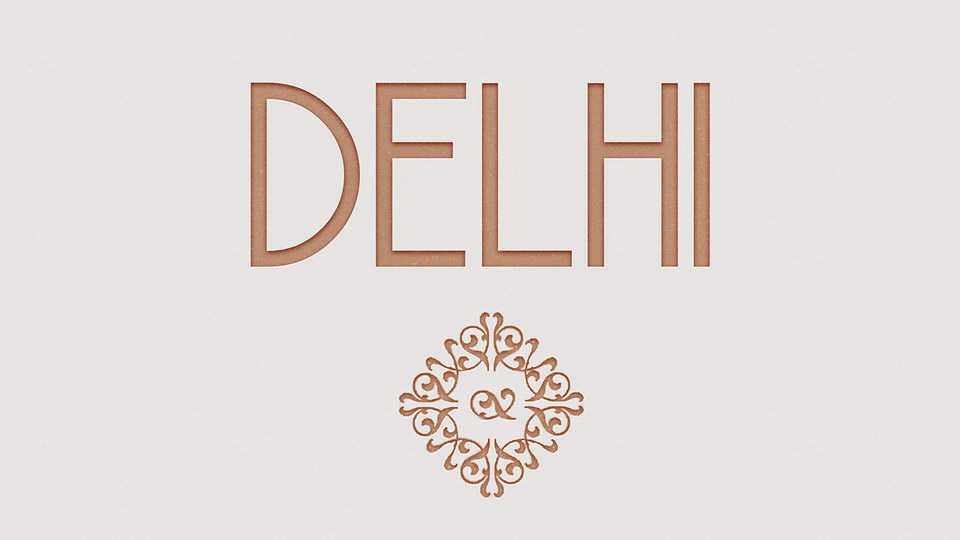
Download Delhi font, a display font, shamelessly inspired by the gorgeous art deco era. It’s all caps, with some subtle alternative lower cases. Delhi is great for retro logos, posters, magazines and more.
Designer: Antonio Rodrigues Jr